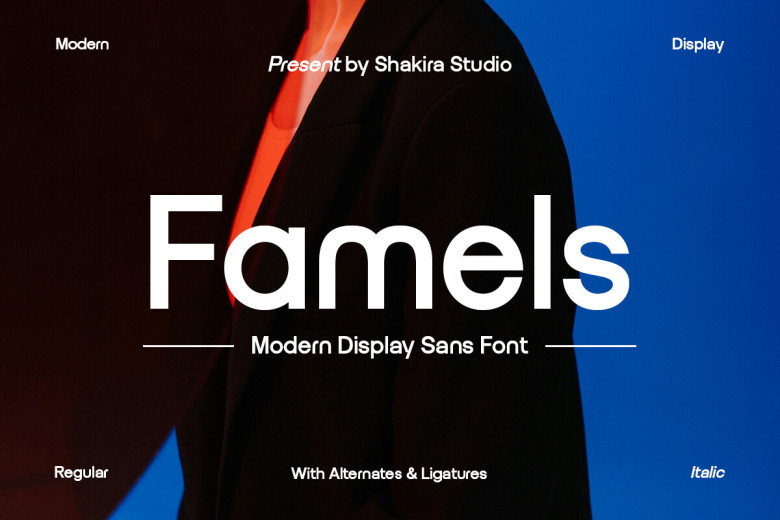
Famels Font
Famels is an ideal Modern Display Sans Serif Font that can be used in your projects! The brand has a minimalist feel that will appeal to the theme of modern and industrial architecture in terms of design and utter simplicity. Yes, cleaning the dishes through this method is actually convenient but Famels is designed modest as well as flexible.
Famels come in the Regular and the Italic and have stylish alternates and special ligatures, but they fit into the clean and professional look in completely different manners. This is useful mainly for branding, web or editorial projects where Famels ensures that your finished product looks clean, contemporary and sophisticated.
This font can be used as a clean and classic touch to the now common fonts selection with Famels. Unique and elegant, you can add this sleek look to your design projects for that extra boost of elegance!
Famels Sans Serif Font